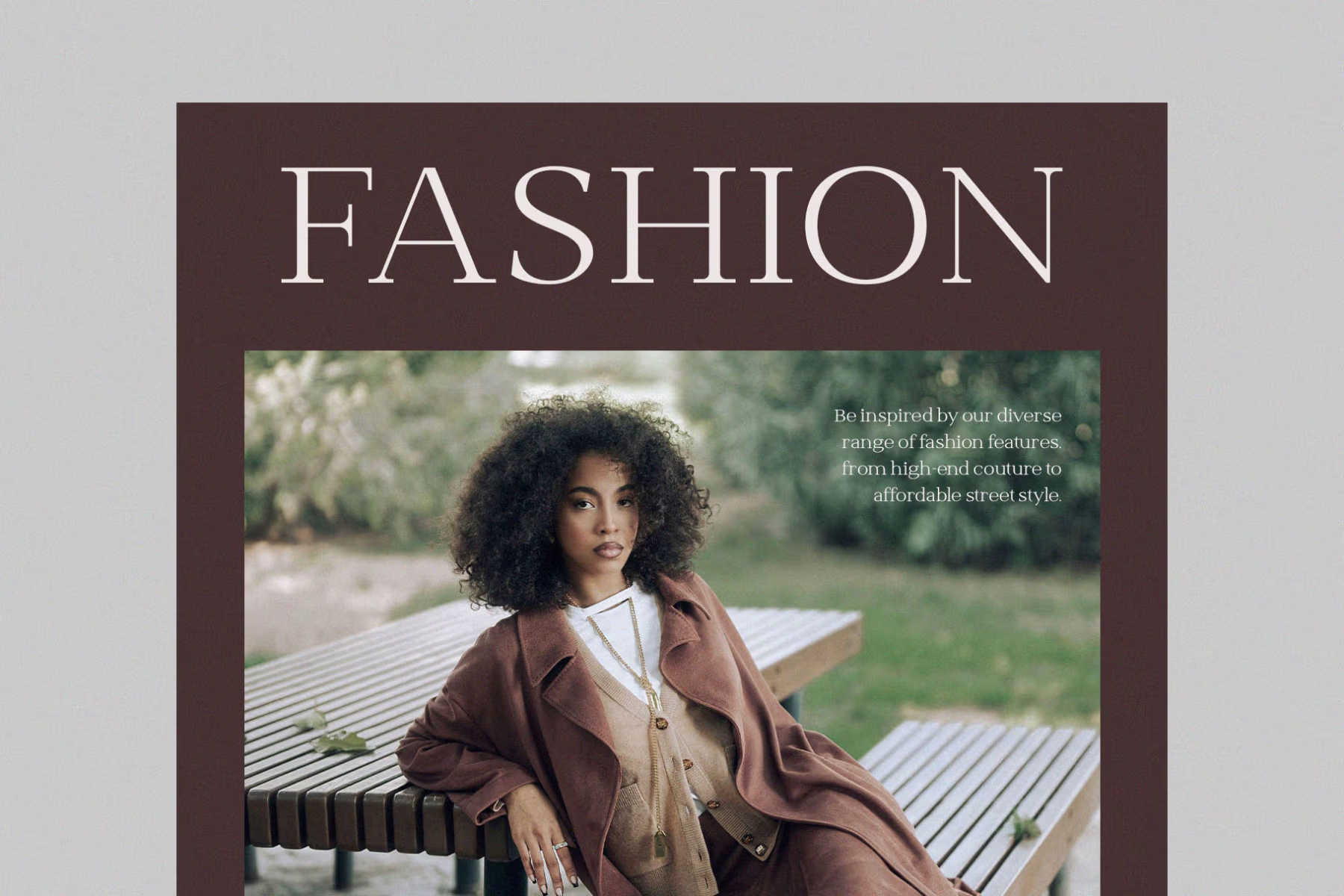
Shetilo Font
Shetilo is a modern, thin-lettered serif typeface designed by Typeformers. Its elegant and versatile design makes it suitable for a wide range of applications, from birthday cards to article headings. With its delicate yet striking appearance, Shetilo effortlessly adds a romantic touch to any project.